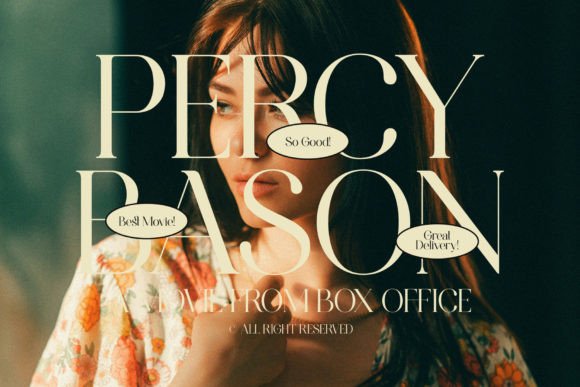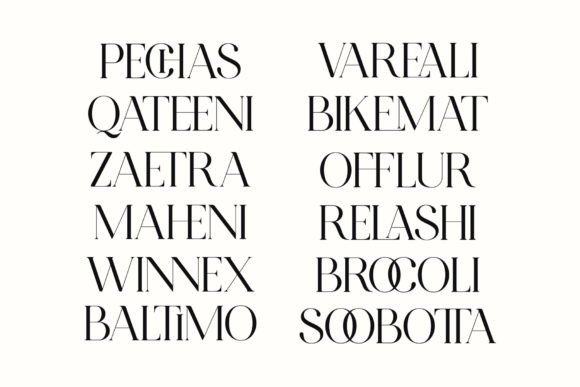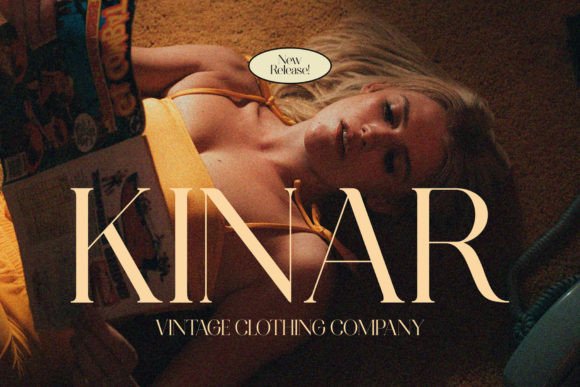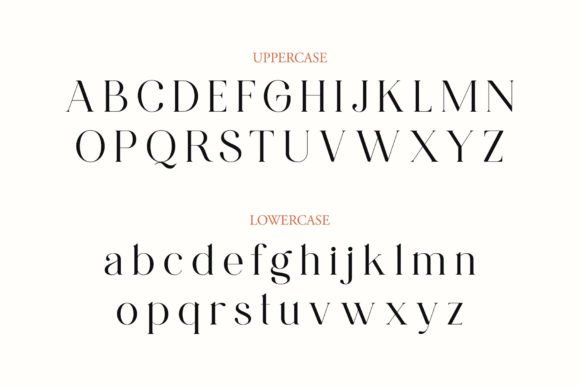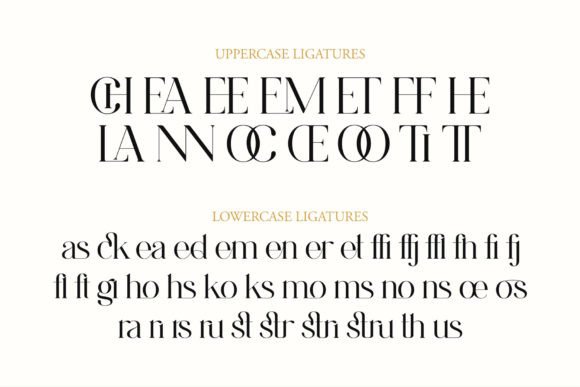
Introducing Gastrub Font: Elevate Your Designs with Elegance and Sophistication
In the world of typography, a font can make or break a design. A well-crafted font can elevate your creative project from ordinary to extraordinary. If you’re a designer, craft, or simply a creative enthusiast, you’re in luck! Today, we’re excited to introduce you to Gastrub Font, a modern, elegant, and highly versatile typeface that’s sure to become your new favorite.
A Masterfully Designed Font
NCL Gastrub is a stunning ligature and swashes font that’s been meticulously designed to bring your creative ideas to life. Its modern and elegant design makes it perfect for a wide range of applications, from weddings and headlines to billboards, magazines, websites, titles, posters, branding, and logos. Whether you’re working on a large-scale project or a small one, Gastrub Font is sure to impress.
Perfect for Large and Small Point Sizes
One of the standout features of Gastrub Font is its versatility when it comes to point sizes. While it’s purposely crafted to shine in large point sizes, it doesn’t lose its magic in smaller point sizes. This means you can use it for a variety of projects, from eye-catching headlines to body text. Its legibility and elegance are maintained across different sizes, making it a reliable choice for any design project.
Elegant Ligatures and Swashes
Gastrub Font boasts beautiful ligatures and swashes that add a touch of sophistication to any design. These elegant flourishes can be used to create stunning titles, headers, and even logos. With Gastrub Font, you can add a level of refinement and style to your designs that’s hard to achieve with standard fonts.
Another significant advantage of Gastrub Font is that it’s PUA (Private Use Area) encoded. This means you can access all the amazing glyphs and ligatures with ease, giving you complete creative control over your designs. No more tedious font editing or complicated workarounds – with Gastrub Font, you can simply select the glyphs and ligatures you need and get creative!
So, what can you create with Gastrub Font? The possibilities are endless! Here are a few ideas to get you started:
- Wedding designs: Create stunning wedding invitations, programs, and decorations with Gastrub Font’s elegant ligatures and swashes.
- Headlines and titles: Use Gastrub Font to create eye-catching headlines and titles for magazines, newspapers, and websites.
- Logos and branding: Develop a unique and memorable brand identity with Gastrub Font’s sophisticated design.
- Posters and billboards: Make a statement with Gastrub Font’s bold and elegant design.
- Websites and digital design: Elevate your website or digital project with Gastrub Font’s clean and modern aesthetic.
Why Choose Gastrub Font?
With so many fonts available, why choose Gastrub Font? Here are just a few reasons:
- Unique design: Gastrub Font’s modern and elegant design sets it apart from other fonts.
- Versatility: Use Gastrub Font for a wide range of projects, from large-scale designs to small ones.
- Ease of use: PUA encoding makes it easy to access and use the font’s glyphs and ligatures.
- High-quality design: Gastrub Font is crafted with attention to detail, ensuring a high-quality design that will elevate your projects.
| Font Name | Gastrub Font |
| Author | Enxyclo |
In conclusion, Gastrub Font is a game-changer for designers, crafters, and creative enthusiasts. Its modern and elegant design, versatility, and ease of use make it an excellent addition to any font library. Whether you’re working on a large-scale project or a small one, Gastrub Font is sure to impress. So why wait? Get your hands on Gastrub Font today and elevate your designs to new heights!